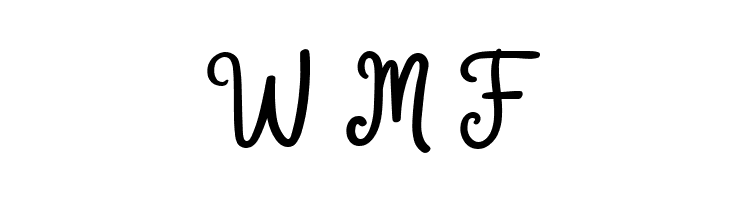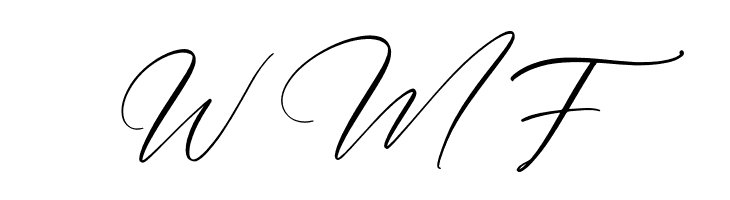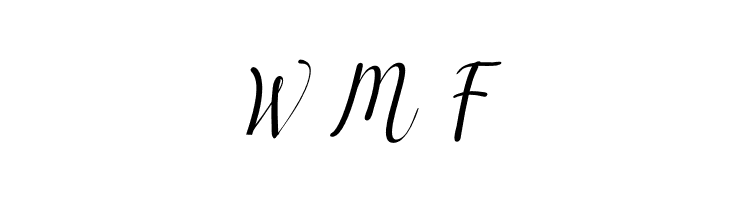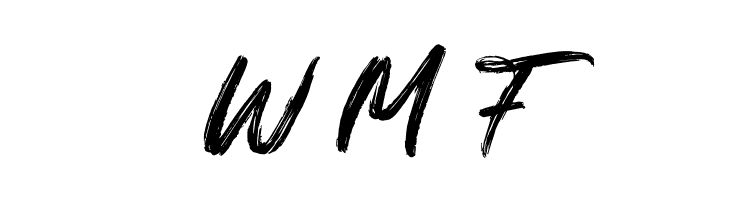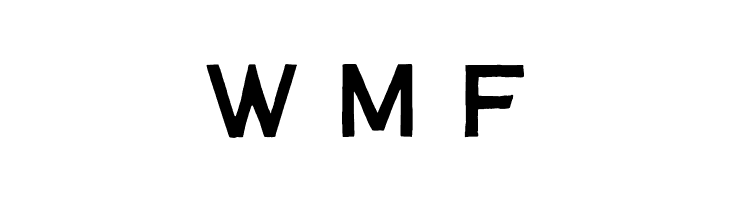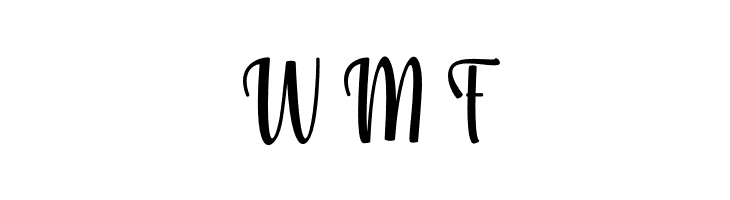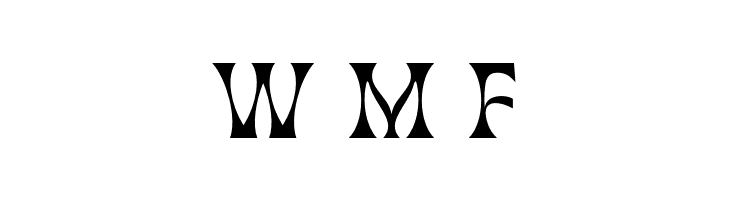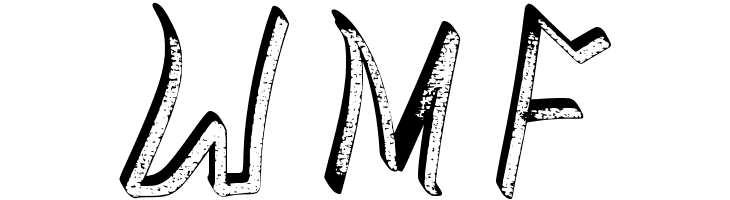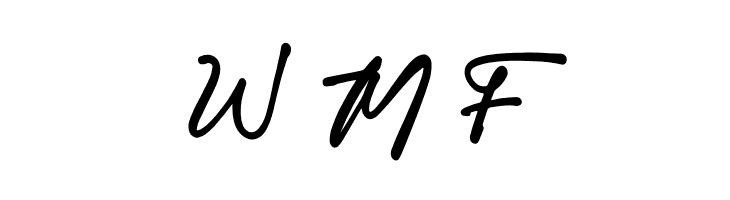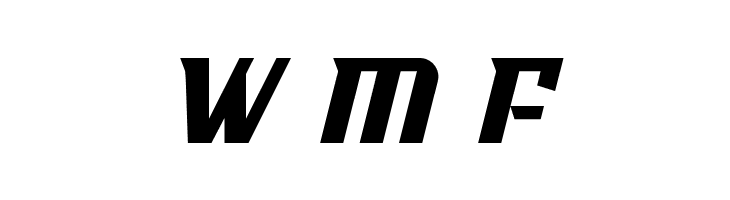
A dynamic, hand-drawn font with bold, textured strokes and an edgy, artistic style.
An elegant and flowing script font with graceful curves and loops.
A lively and expressive script font with a playful and dynamic style.
A modern, elegant handwritten font with flowing, interconnected letterforms.
An elegant script font with intricate swashes and flowing lines.
A bold, brush-style font with expressive, dynamic strokes.
A bold, brushstroke-style font with dynamic, expressive characters.
Elegant, high-contrast decorative script with flowing strokes.
Bold, angular, and dynamic font with a modern style.
A graceful script font with flowing, interconnected letters and high contrast.
An elegant script font with flowing, cursive letters and high contrast strokes.
An elegant script font with flowing, cursive letters and intricate swashes.
Playful handwritten script with bold, tall, and rounded characters.
Playful and bold decorative font with hand-drawn style.
A playful, handwritten script font with dynamic loops and smooth curves.
A decorative font with whimsical curves and artistic flair.
A bold, playful font with rounded edges and a modern-retro charm.
A bold, decorative font with intricate curves and high contrast.
A playful and elegant handwritten script font with fluid, dynamic lines.
A sophisticated cursive font with elegant, flowing strokes and varied thickness.
A lively, elegant script font with fluid cursive strokes and an italic slant.
A fluid, cursive handwritten font with elegant, dynamic strokes.
A casual, handwritten font with a playful and informal style.
A bold, brush-style font with a dynamic and artistic flair.
A flowing, cursive script font with elegant curves and a handwritten style.
An ornate, decorative font with characters enclosed in floral wreaths, ideal for elegant monograms.
Expressive, angular script with a bold, hand-drawn look.
A playful, handwritten font with smooth curves and a casual style.
A clean and elegant font with smooth curves and balanced structure.
A lively and expressive handwritten font with fluid, dynamic strokes.
Expressive handwritten script with fluid, elegant strokes.
A bold, handcrafted font with a distinctive and slightly rough texture.
An elegant, cursive font with fluid, interconnected strokes.
Playful decorative script font.